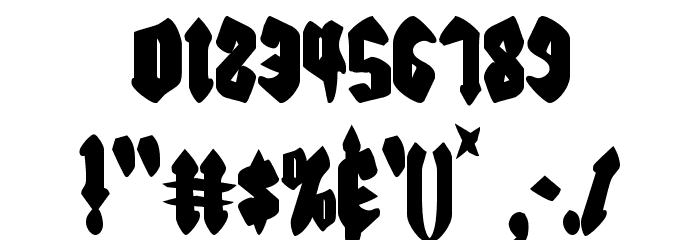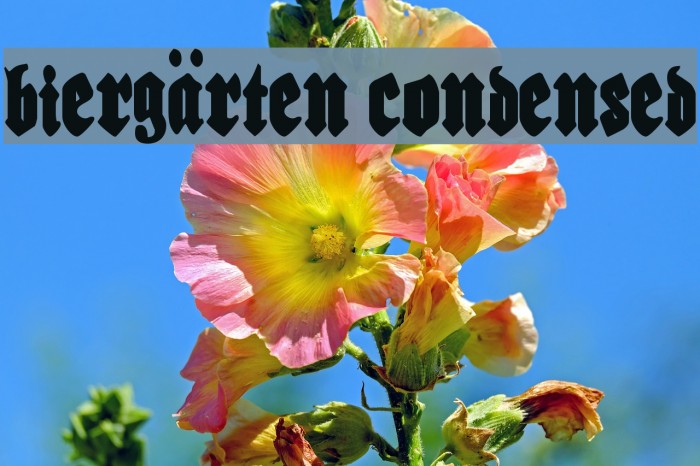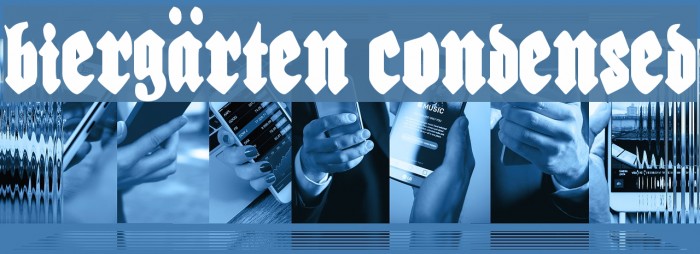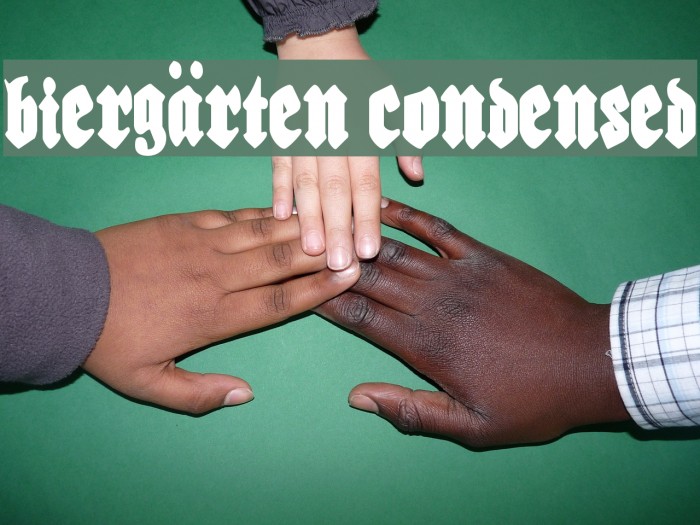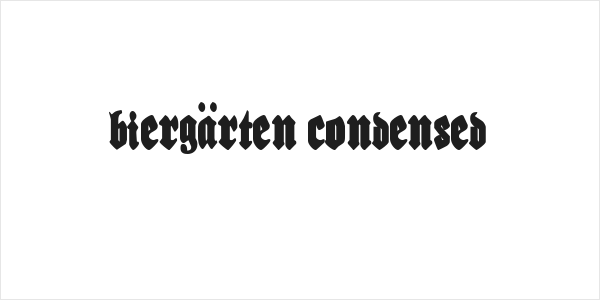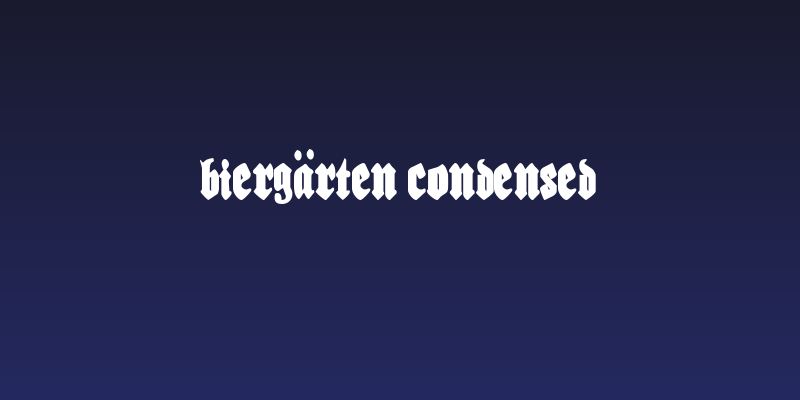
Biergärten Condensed Font
Biergärten Condensed Description
This font features a bold and dramatic style, characterized by its sharp, angular lines and intricate detailing reminiscent of traditional Blackletter typefaces. The condensed nature of the characters allows for a compact and efficient use of space, making it ideal for creating impactful headlines or titles. The uppercase and lowercase letters maintain a consistent visual weight, while the numerals and special characters complement the overall aesthetic with their ornate design. The font's historical and gothic appeal makes it suitable for projects that require a touch of vintage elegance or a medieval theme.
| Proposed Projects | Ideal for vintage-themed posters, gothic book covers, historical event invitations, or branding that requires a medieval touch. |